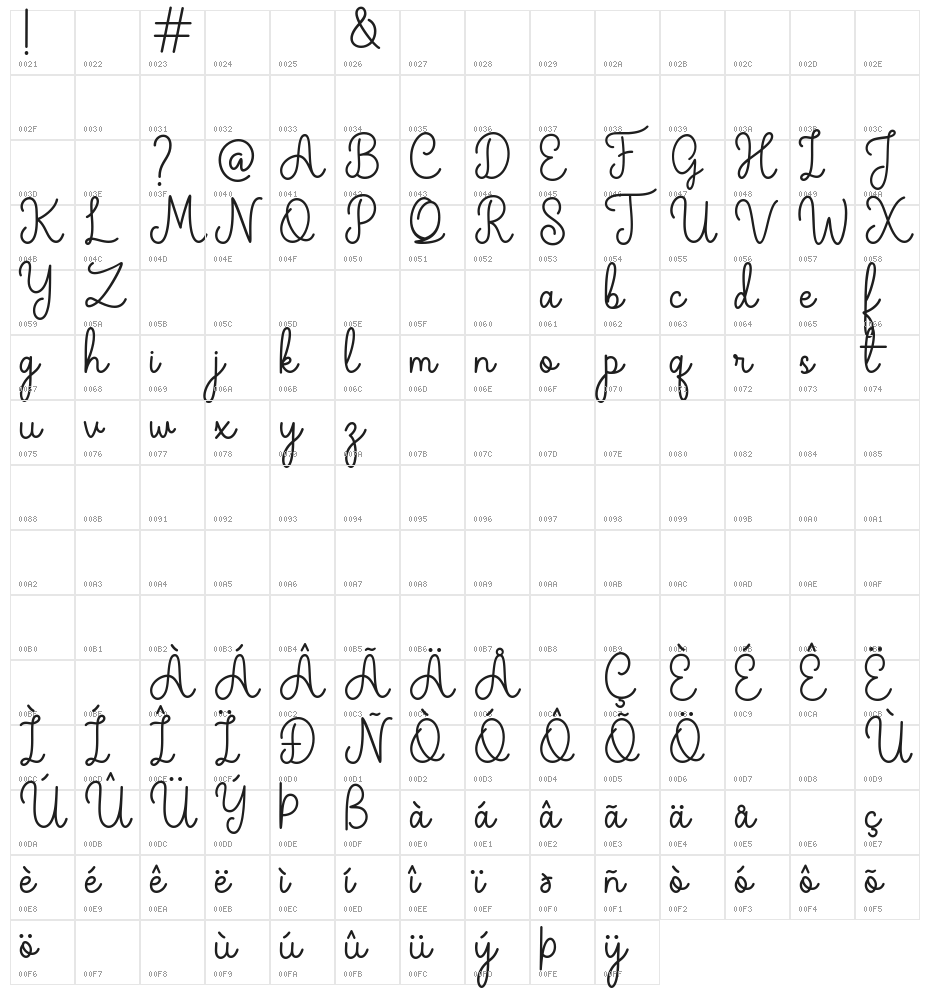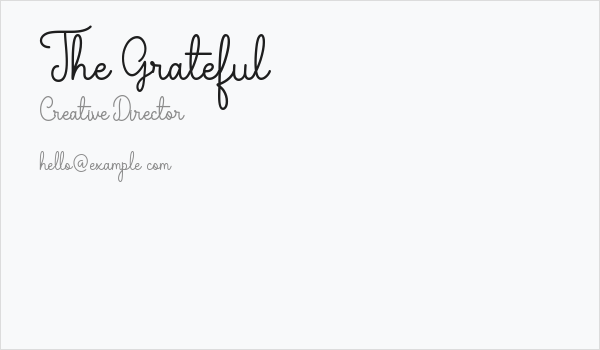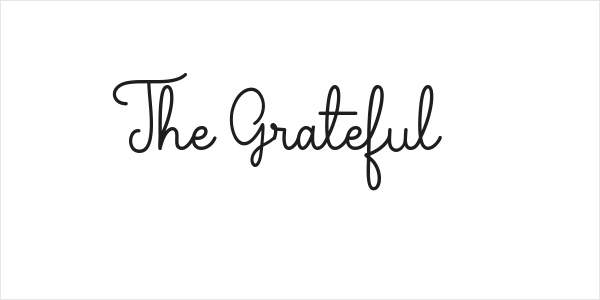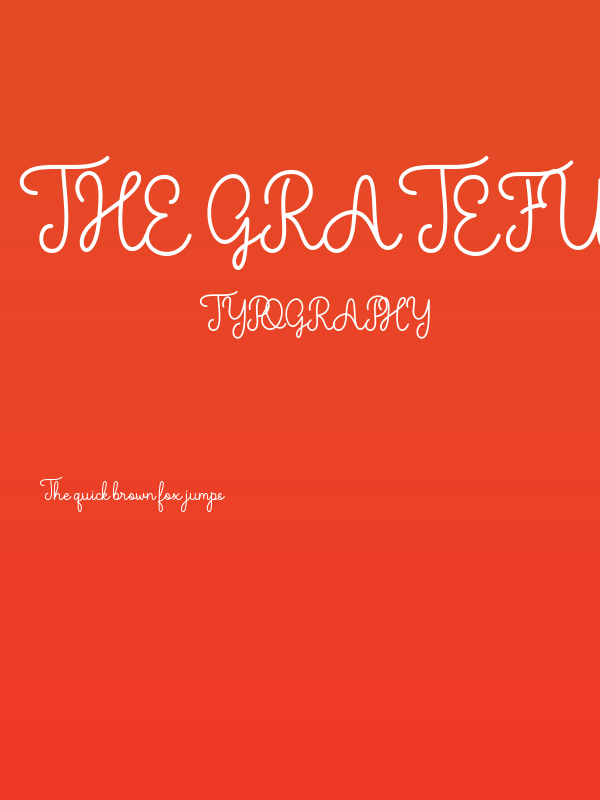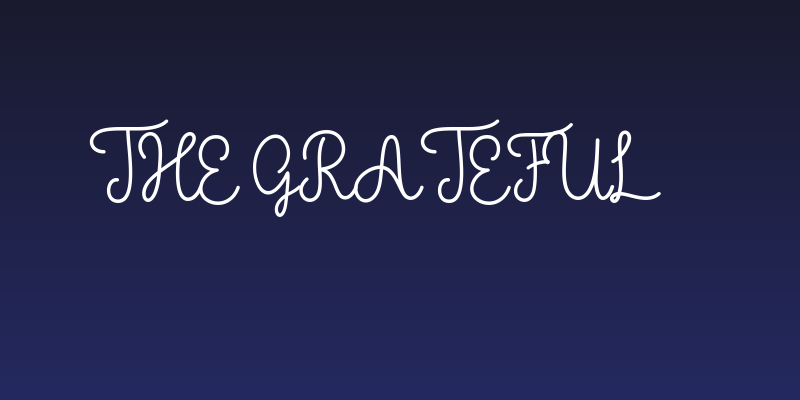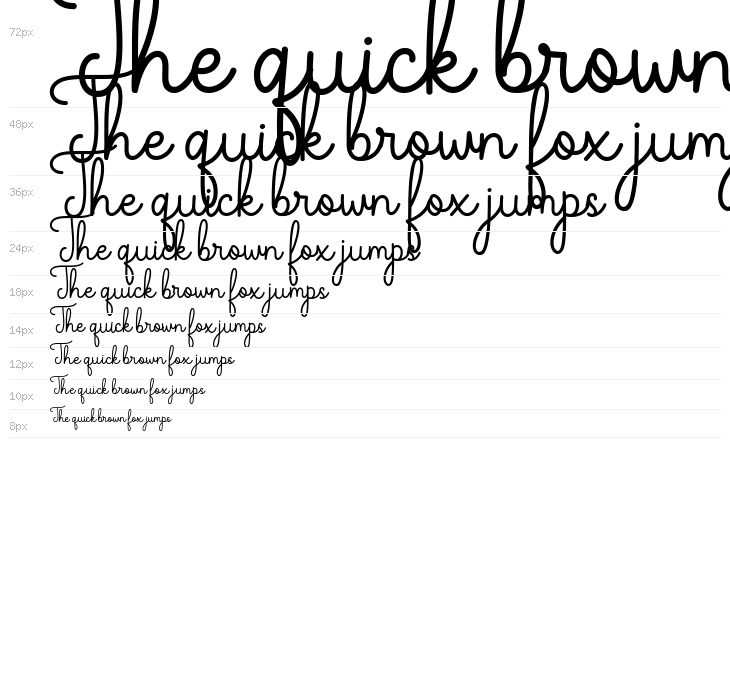
The Grateful 1 Font
The Grateful 1 Description
This font features a playful and elegant script style with a handwritten appearance. The uppercase letters are characterized by smooth, flowing lines and gentle curves, giving them a whimsical yet sophisticated look. The lowercase letters maintain a consistent style, with some letters featuring loops and swirls that enhance the font's decorative nature. The numbers and special characters are designed to match the overall aesthetic, with a cohesive and harmonious appearance. This font is ideal for projects that require a personal touch, such as invitations, greeting cards, and branding materials.
| Proposed Projects | Ideal for invitations, greeting cards, branding materials, and decorative projects. |